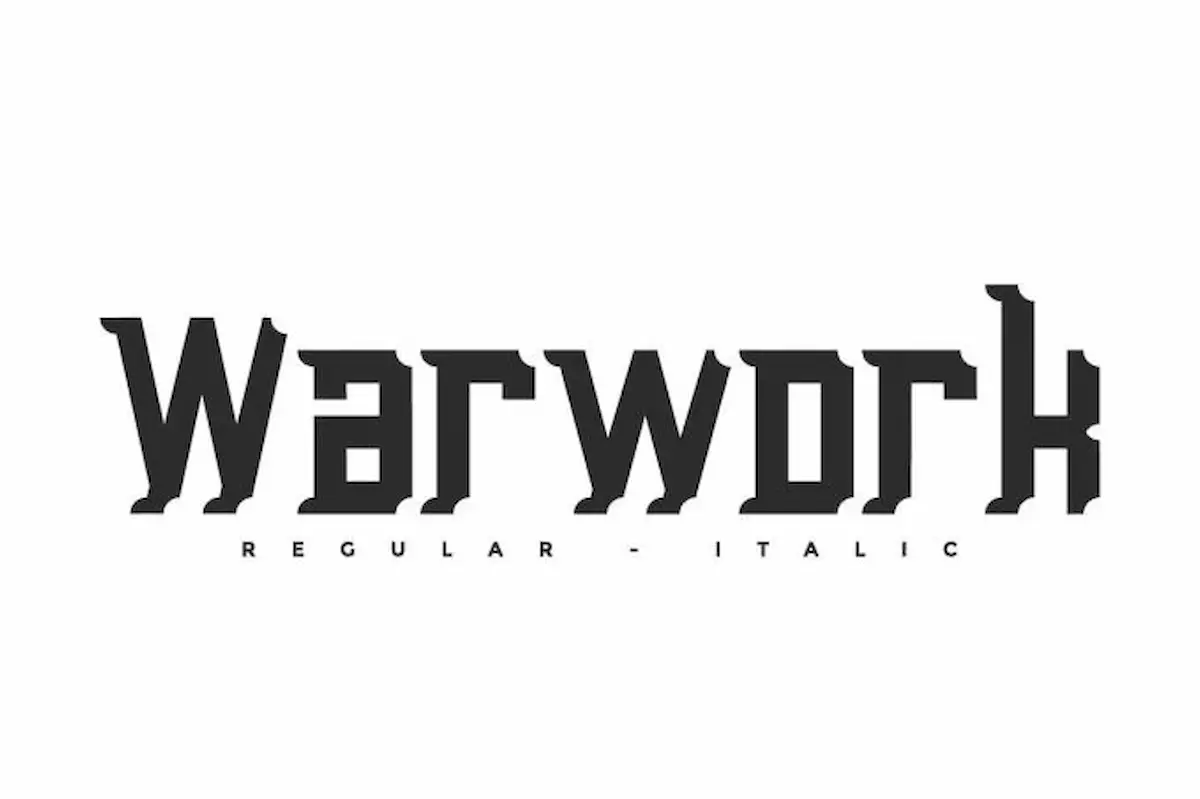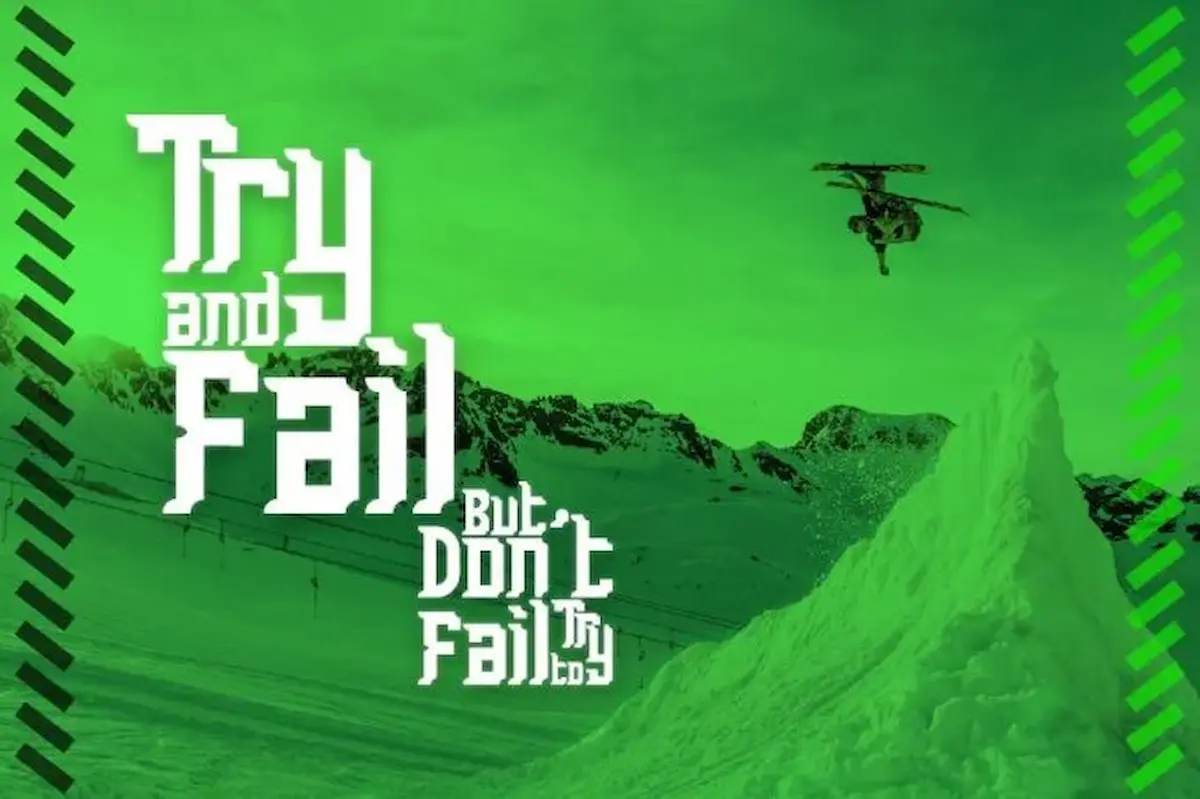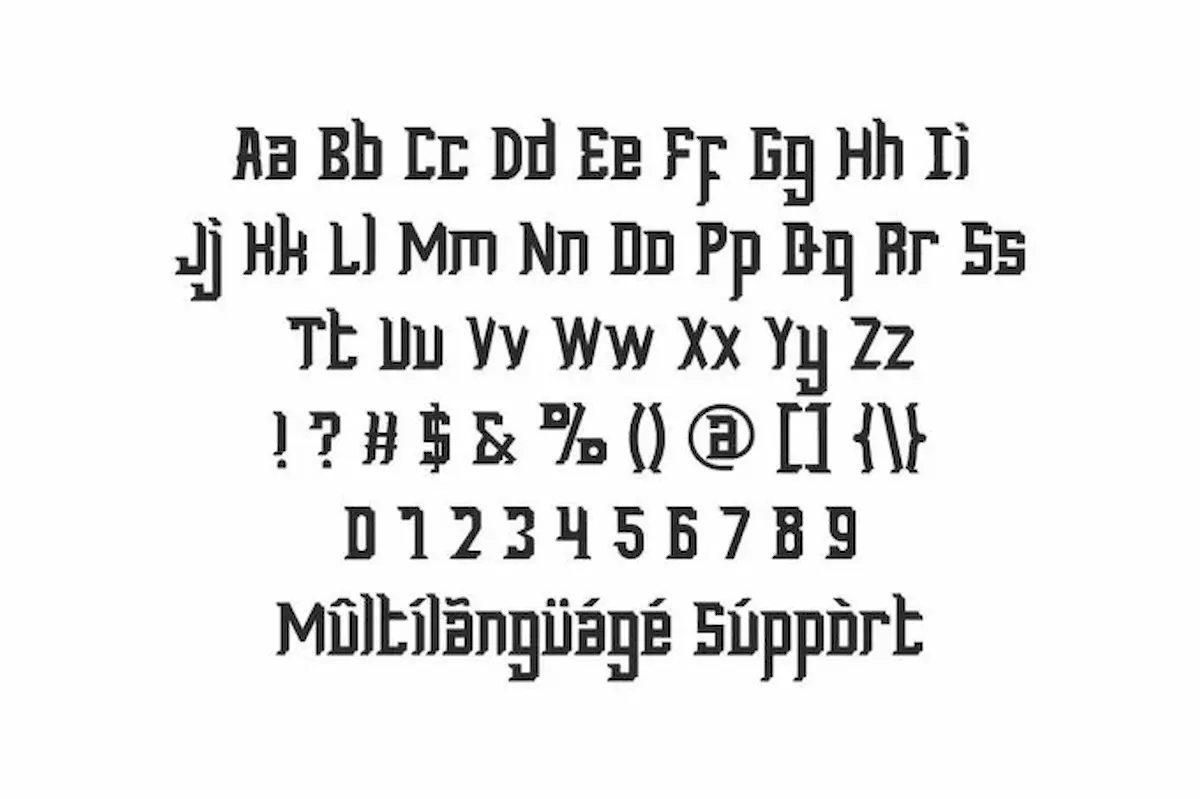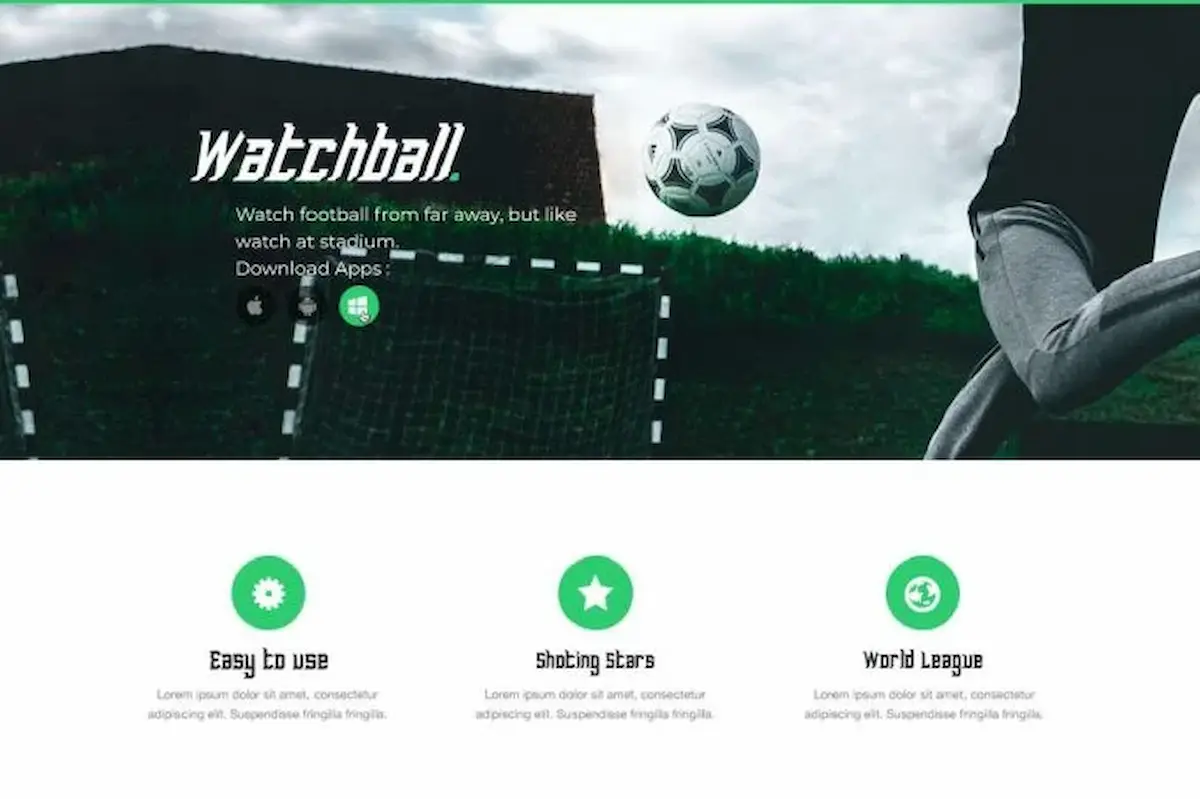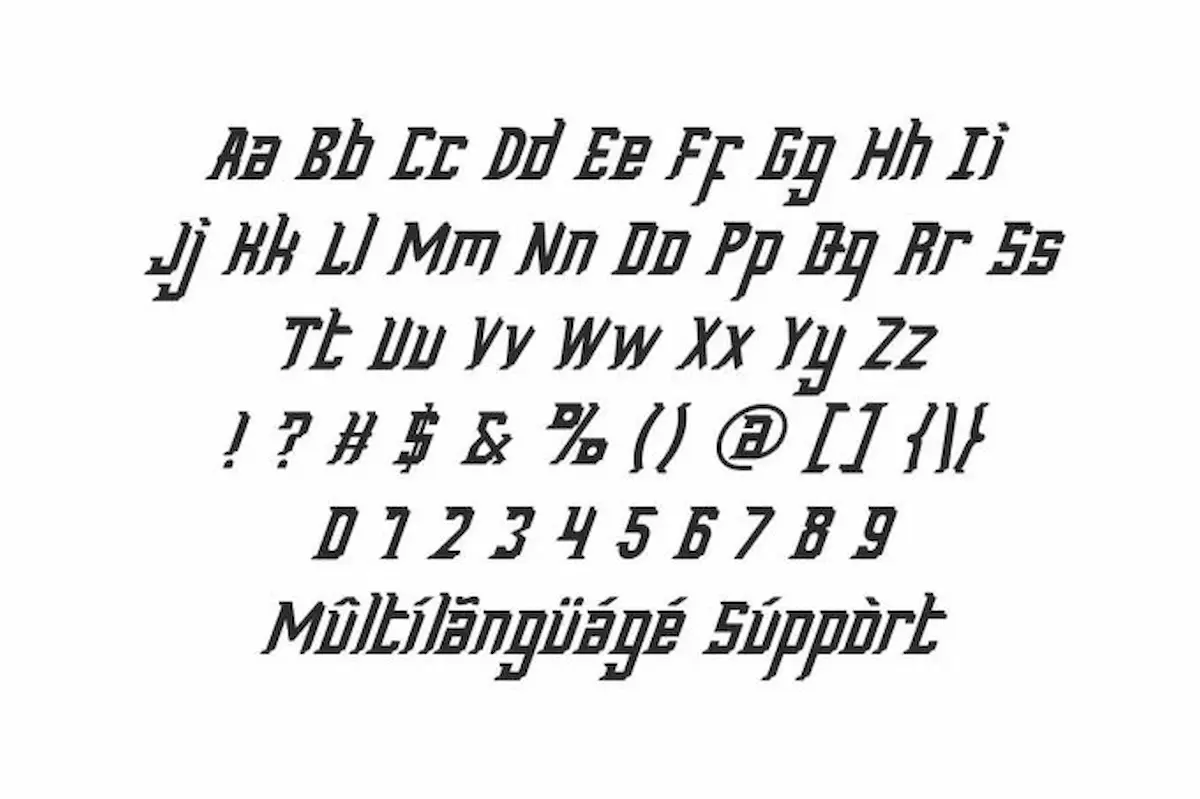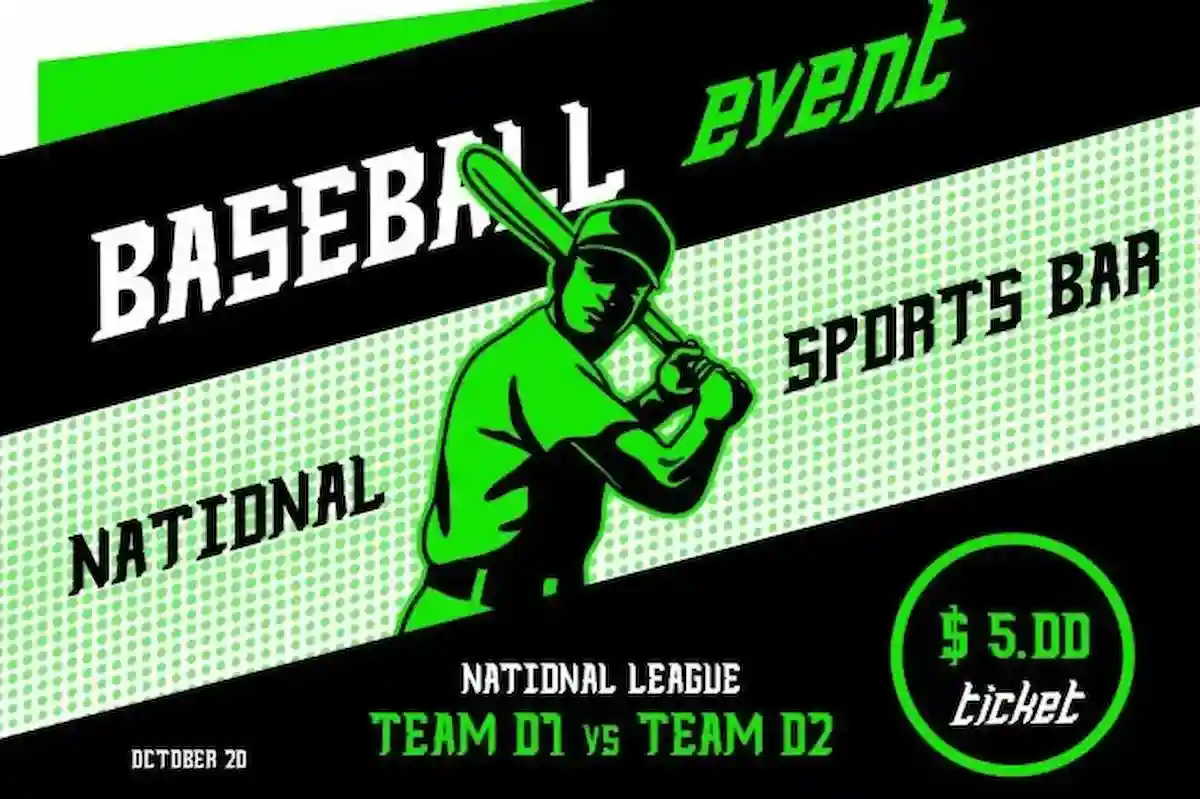
Warwork Font is a modern sporty font family by NihStudio. This unique and sporty style font has two cool looks
Warwork Font is a sporty display font with a unique character that has two styles. This font has a letter effect that resembles shards or puzzle pieces, try the font by typing your own text below. Please note that the test font below is a demo file, so some specimens/characters will not show up.